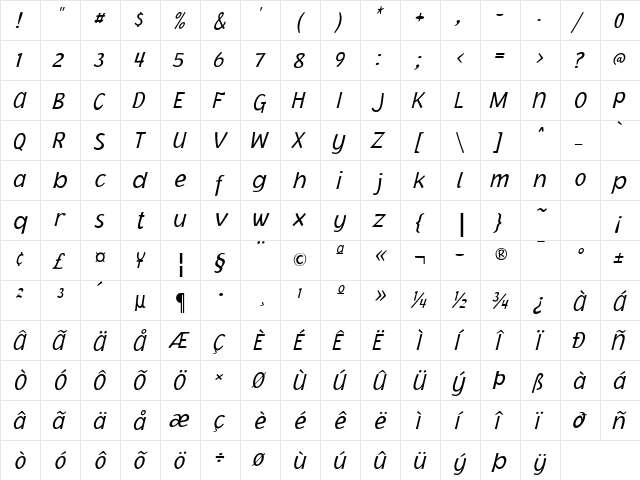
Jacoby ICG Light Italic Font Preview
Design Context for Jacoby ICG Light Typeface
Jacoby ICG Light takes a measured approach to typography — its balanced proportions and neutral character make it a reliable workhorse for both digital and print work. The dynamic lean of this cut emphasises speed and emphasis in any layout. The delicate stroke weight brings airiness and refinement to layouts.
Pro Tip: Try Jacoby ICG Light for annotation and caption copy alongside an upright companion — the contrast in angle creates a dynamic but ordered typographic system.